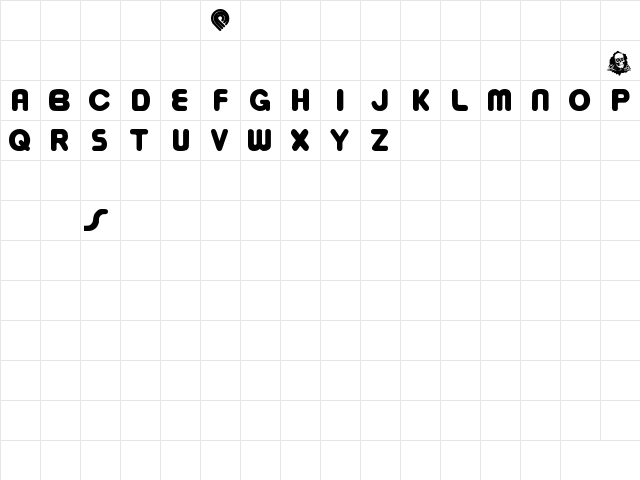
bowellberalta Regular Font Preview
bowellberalta Regular
bowellberalta Regular Font Details
Design Context for bowellberalta Typeface
bowellberalta offers clean, dependable letterforms without strong stylistic allegiance, making it a practical choice for designers who need flexibility.
Pro Tip: Use bowellberalta in both headline and body roles to test its range before committing to a single application.